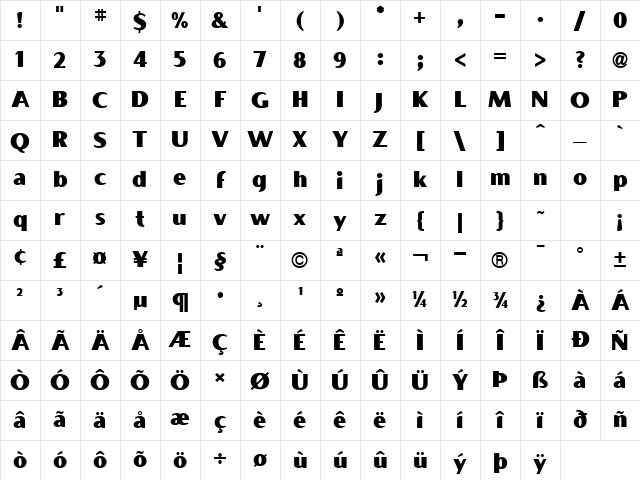
Boca Raton ICG Solid Regular
Design Context for Boca Raton ICG Solid
Boca Raton ICG Solid is a composed and adaptable typeface that performs quietly and consistently across a wide range of design contexts.
Pro Tip: Use Boca Raton ICG Solid in both headline and body roles to test its range before committing to a single application.